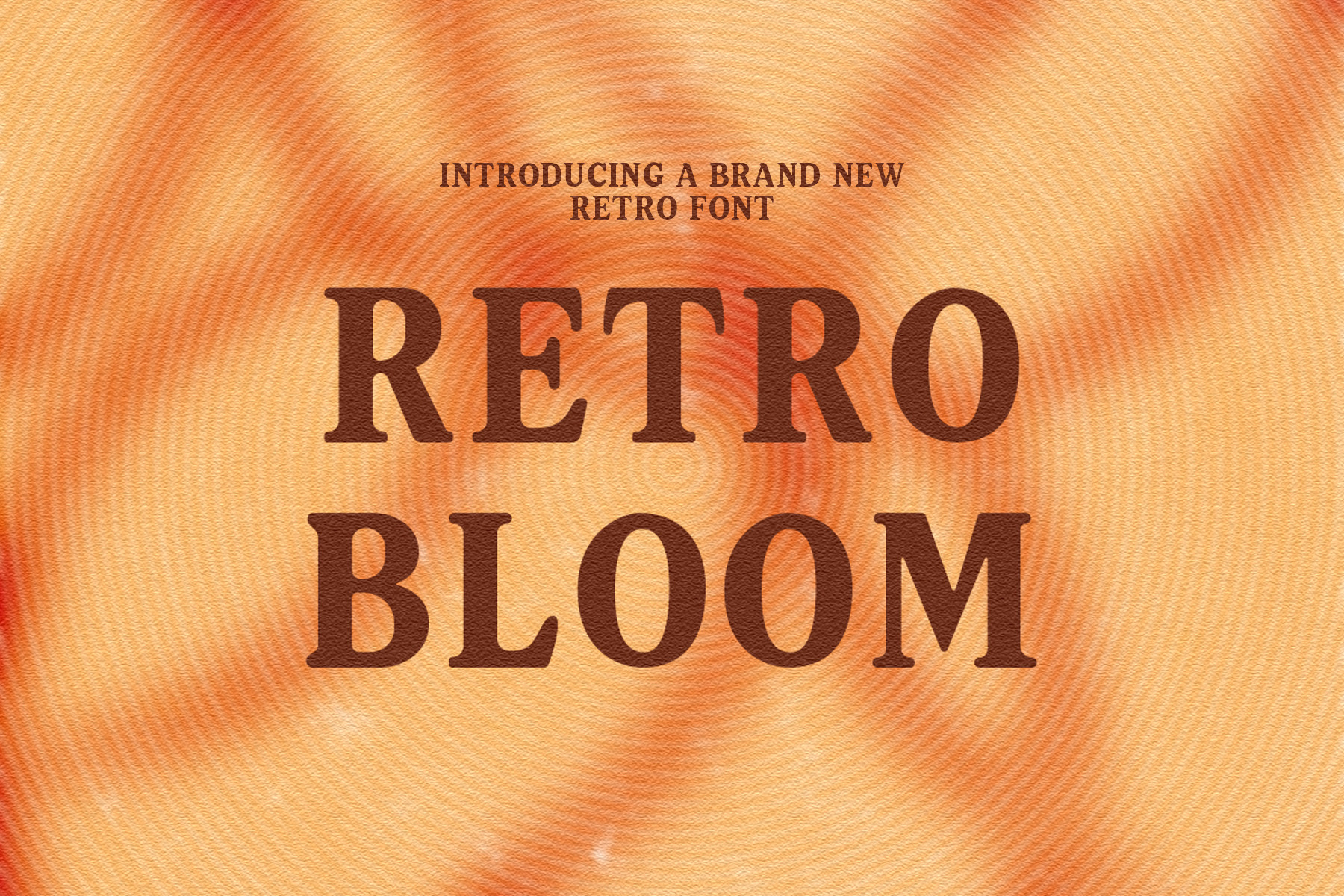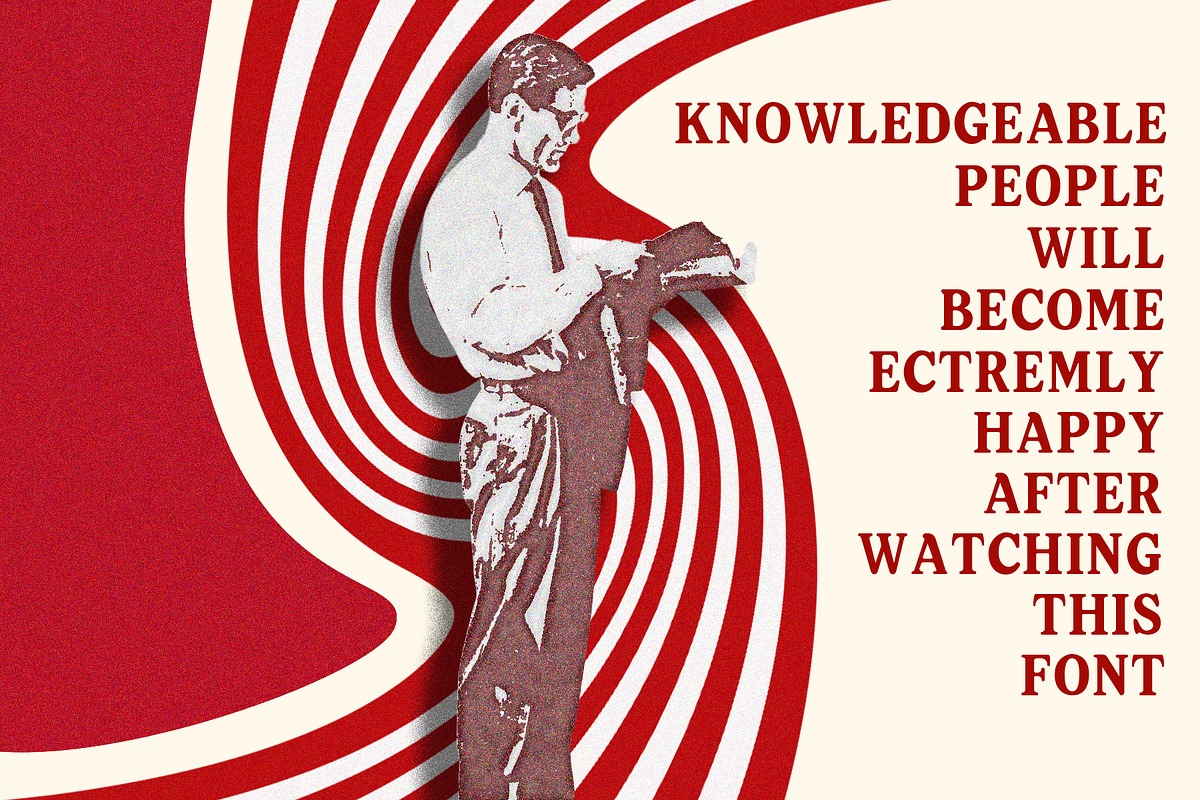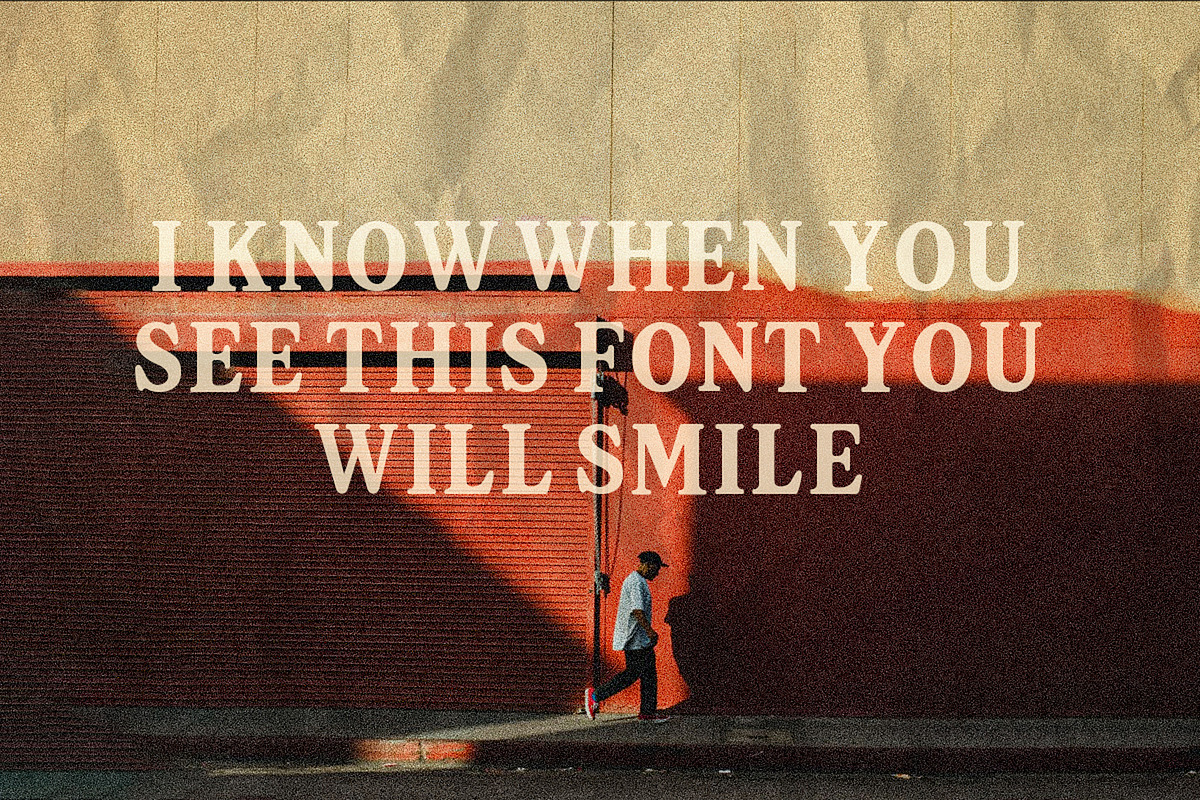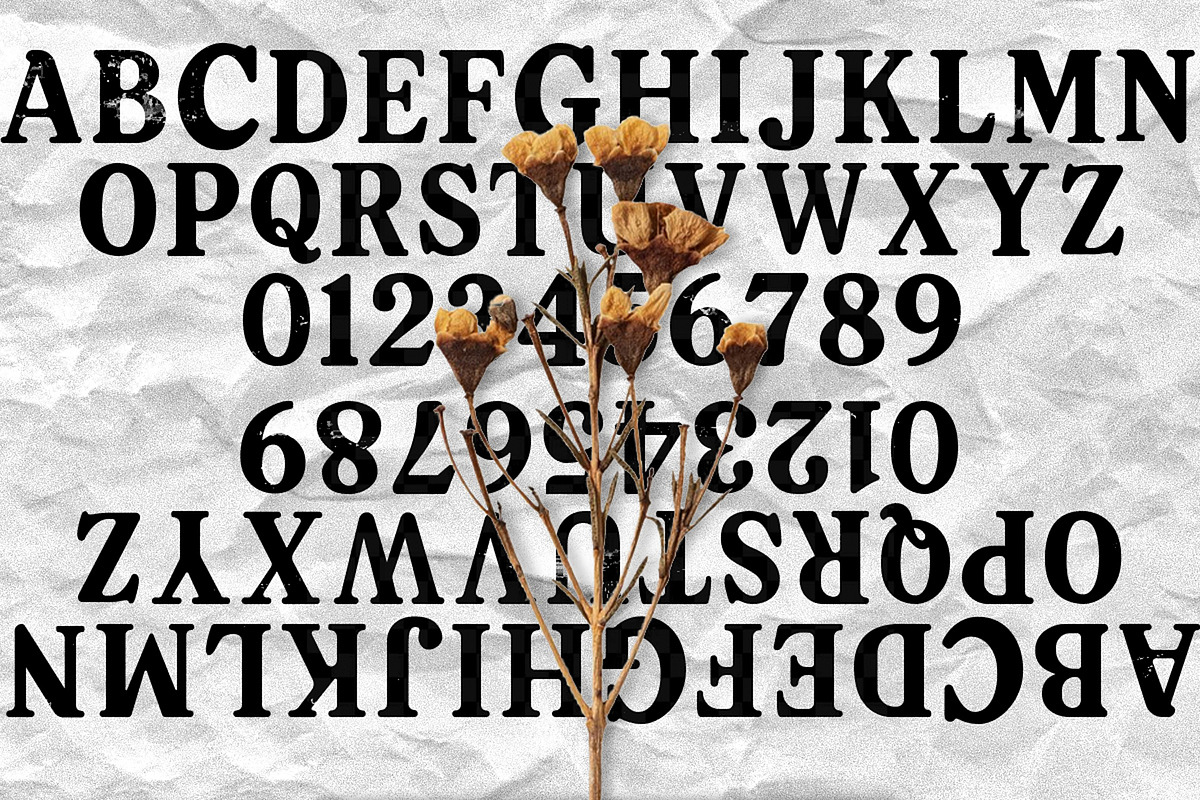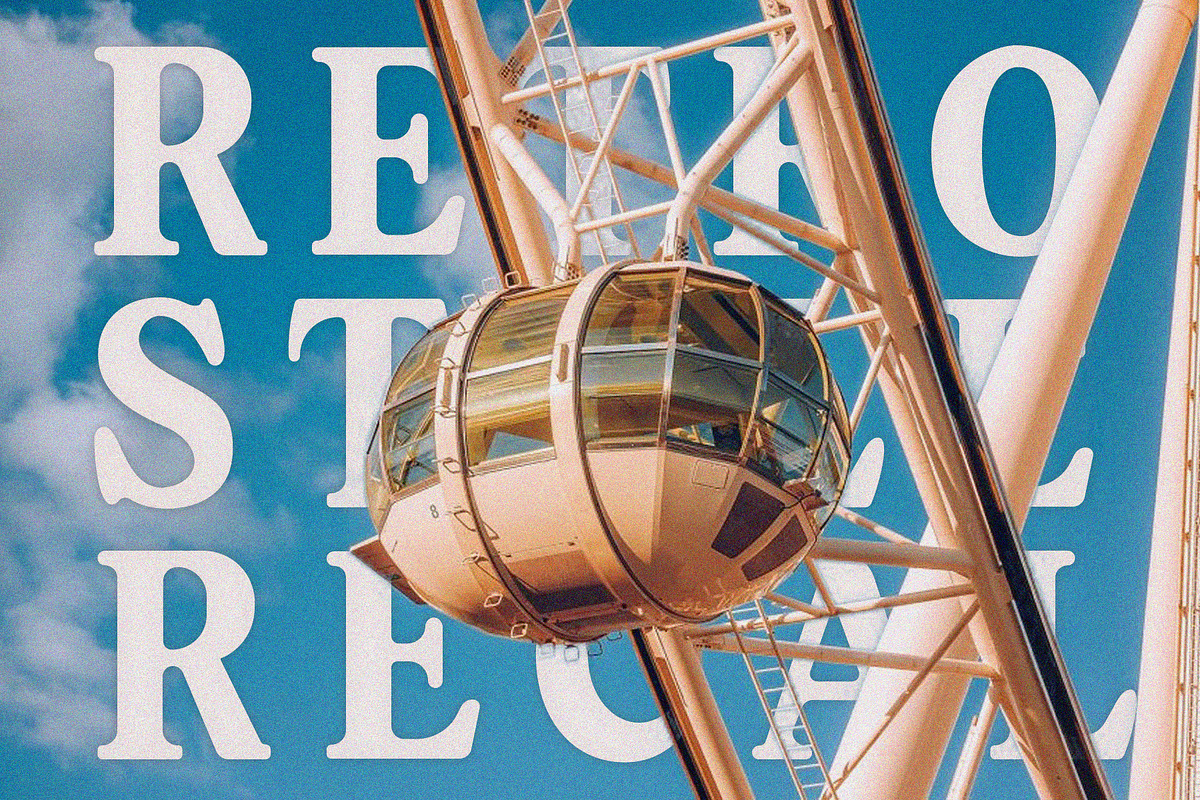
Retro Bloom Font
Introducing "Retro Bloom" – A Whimsical Retro Serif
Retro Bloom is a charming serif font with a nostalgic soul and a modern twist. Inspired by mid-century packaging and vintage typography, this typeface blends smooth curves, playful serifs, and high-contrast strokes to create a truly timeless design.
Perfect for brand identities, packaging, social media graphics, and editorial layouts, Retro Bloom brings warmth and personality to every project. Each letter has been carefully crafted to maintain visual harmony while embracing a slightly quirky character that sets your work apart.
✨ Features: Uppercase Letters
Lowercase Letters
Smooth vintage-inspired serifs
Soft, elegant curves with bold contrast
Great legibility for both print and digital
Whether you're designing a nostalgic logo, dreamy product label, or elegant headline, Retro Bloom will make your audience smile – just like the message on your package.